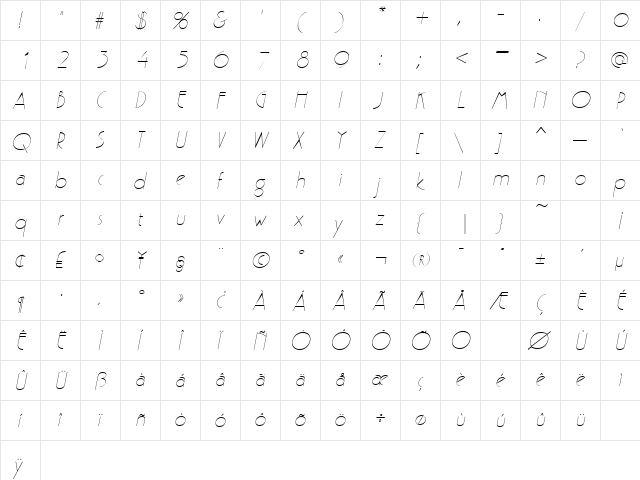
Pergamon Italic
Design Context for Pergamon Typeface
Pergamon takes a measured approach to typography — its balanced proportions and neutral character make it a reliable workhorse for both digital and print work. Its italic angle brings a sense of urgency and motion to the letterforms.
Pro Tip: Try Pergamon for annotation and caption copy alongside an upright companion — the contrast in angle creates a dynamic but ordered typographic system.